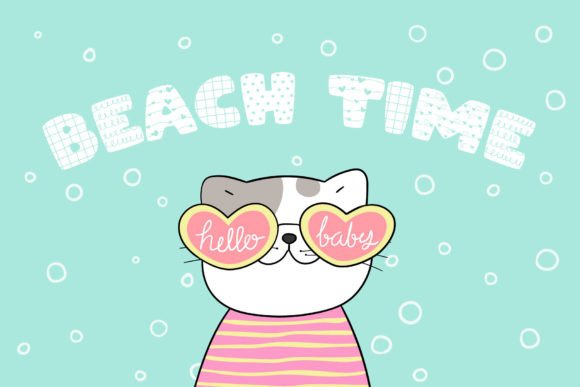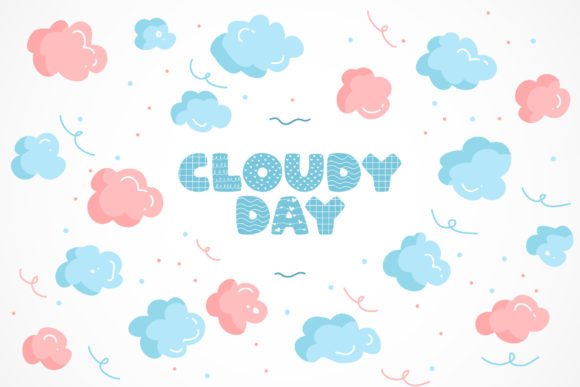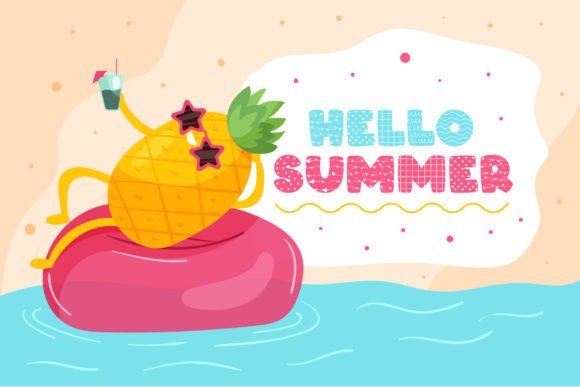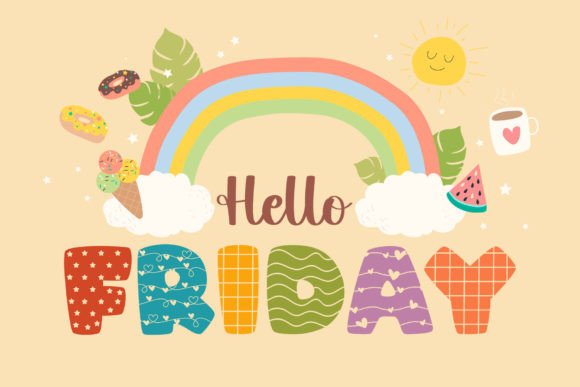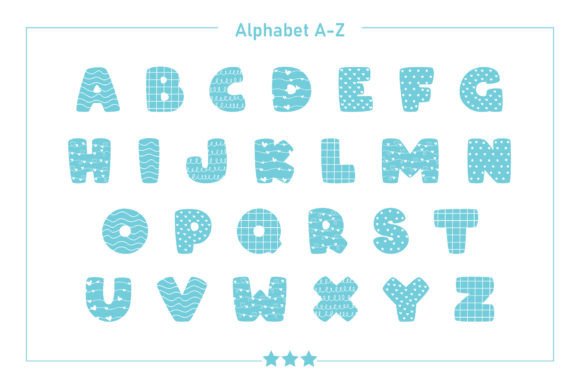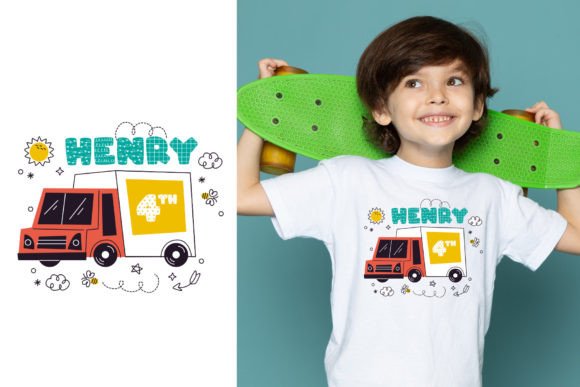
Introduction to Luna Cute Font
Remember that moment when you’re brainstorming ideas for a new design project and everything falls into place? The colors, the shapes, the text – it all comes together in perfect harmony. For designers, those ‘aha’ moments are what make our jobs truly rewarding. And sometimes, all it takes is the right font to elevate a design from good to great. That’s where the Luna Cute Font comes in – a high-quality display font that’s sure to add a touch of magic to your creative project.
This free download is a treasure trove of design inspiration, perfect for kids’ themes, educational materials, and more. With its bright, fun aesthetic, the Luna Cute Font is a must-have for any designer looking to add a playful twist to their work. Plus, its transparent background makes it easy to layer over other designs, giving you endless possibilities for creative expression.
Key Features of Luna Cute Font
- High-quality design resource suitable for various creative projects, including digital art and graphic design.
- Features a transparent background, allowing for seamless integration with other design elements.
- Designed with a cute and playful aesthetic, making it perfect for children’s books, educational materials, and other family-friendly projects.
Honest Review: Luna Cute Font
I recently had the chance to work with the Luna Cute Font, and I must say it’s a lovely addition to any design project. ✨ Its high quality and unique design make it a great resource for creative individuals.
One of the standout features of the Luna Cute Font is its transparent background, which allows for seamless integration with any design. This makes it perfect for projects where you want a clean and minimalist look.
Here are some of the things that work well with the Luna Cute Font:
- Transparent background for easy integration with other designs
Overall, I’m impressed with the Luna Cute Font and would recommend it to designers looking for a high-quality, unique font for their creative projects. ⚠️ Just be aware of the limitations and make sure it’s the right fit for your needs.
Experiment with different font sizes and colors to create a visually appealing effect. Use the Luna Cute Font in combination with other design elements to add depth and interest to your designs.
The Luna Cute Font is ideal for creative projects such as invitations, social media graphics, and blog posts. It’s also perfect for adding a touch of personality to your brand’s visual identity.